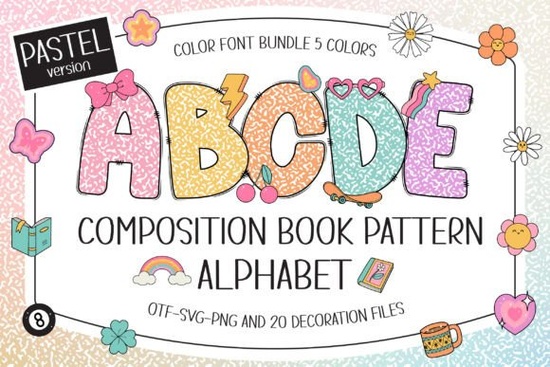
If you're looking for a playful, classroom-friendly font that blends vintage composition book charm with soft pastel energy, the Composition Book Pattern Pastel Font is a thoughtful choice. It’s not just another decorative typeface it’s built for real use: lesson plans, student name tags, scrapbook layouts, printable wall art, and even sublimation-ready merch like tote bags or notebooks. What sets it apart is how it balances nostalgia (think lined notebook paper texture) with modern Y2K-inspired doodles 20 of them, in fact so your designs feel personal and light-hearted without being overly cutesy.
How does this font actually work in design software?
This font comes in two distinct versions: a black-and-white version (which works with Cricut Design Space and most cutting machines), and a full-color pastel version (which only runs in programs that support color fonts like Adobe Photoshop, Illustrator, Silhouette Studio, and Inkscape). The key thing to know: the color version won’t load in Cricut. If you’re planning to cut vinyl or iron-on with a Cricut, stick with the black version. But if you’re designing digital posters, printable worksheets, or layered SVGs for print-on-demand, the pastel version adds instant visual warmth and personality.
For clarity: the color version uses OpenType-SVG or COLR/CPAL technology formats that let each letter appear in its own soft hue, with subtle texture and doodle accents baked right in. That’s why it needs compatible software. If you're unsure whether your program supports it, check our Ultimate Font Guide for step-by-step setup tips.
What kinds of projects suit this font best?
Teachers and homeschoolers often reach for it when making:
- Classroom name tags and behavior charts
- Reading logs and writing prompts with gentle visual cues
- End-of-year memory books or student award certificates
- Printable planners with a soft, approachable tone
- Custom birthday cards or baby shower invites for educators or crafty parents
Small business owners and POD sellers also find it useful for low-competition niches like “teacher appreciation” or “back-to-school stationery” where buyers respond well to warm, handwritten-feeling fonts that still feel polished and intentional. It pairs nicely with clean sans-serifs for body text or with other hand-drawn elements like Sweet Scribble Font, which shares a similar friendly, sketch-like energy but leans more into bold outlines than soft pastels.
- Five pastel color palettes (mint, lavender, peach, sky blue, and buttercream)
- All uppercase and lowercase letters, numerals, and common punctuation
How does it compare to similar fonts on Creative Fabrica?
While fonts like Composition Book Pattern Pastel Font focus on soft academic charm, others like Sweet Scribble Font offer bolder contrast and quicker visual impact. Neither is “better” they serve different moods. Use Composition Book Pattern Pastel Font when you want calm, inclusive, quietly joyful energy; choose Sweet Scribble when you need something more energetic or attention-grabbing.
It’s also worth noting that this font sits comfortably in the colorful fonts category but unlike many trendy gradient or duotone fonts, it avoids visual noise. The pastel tones are muted, the lines are thin and consistent, and the composition book texture stays subtle not overwhelming. That makes it unusually versatile across age groups and settings.
Before you download: a quick checklist
- ✅ You’re using Photoshop, Illustrator, Silhouette, or Inkscape (for the color version)
- ✅ You understand the black version is your go-to for Cricut or cutting machines
- ✅ You need a font that feels educational but not stiff playful but not childish
- ✅ You’ll pair it with simple layout choices (lots of white space, clean backgrounds) to let the pastel textures shine
If those match your needs, this font is ready to bring quiet charm to your next project no overhauling your workflow, no steep learning curve, just soft color, familiar texture, and 20 little doodles waiting to add a wink of personality.